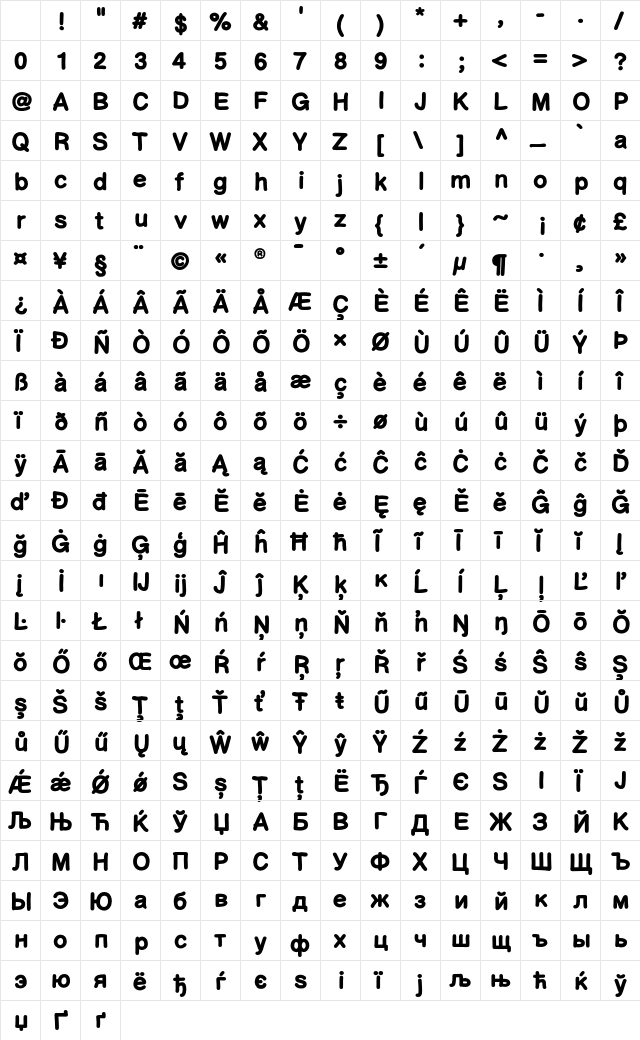
Complete Comic Helvetic Heavy glyph index. Displaying only characters natively supported by Comic Helvetic Heavy font.
Comic Helvetic has an approachable, lighthearted character - its loose, expressive forms are well-suited to children's content, casual branding, and fun-first design.
Font Pairing: Pairs well with a rounded or humanist sans for body copy, maintaining the friendly tone without relying on Comic Helvetic to carry extended reading.
Pro Tip: Use Comic Helvetic at larger display sizes where its expressive character can land. Pair with a clean, simple sans for body copy to maintain readability.